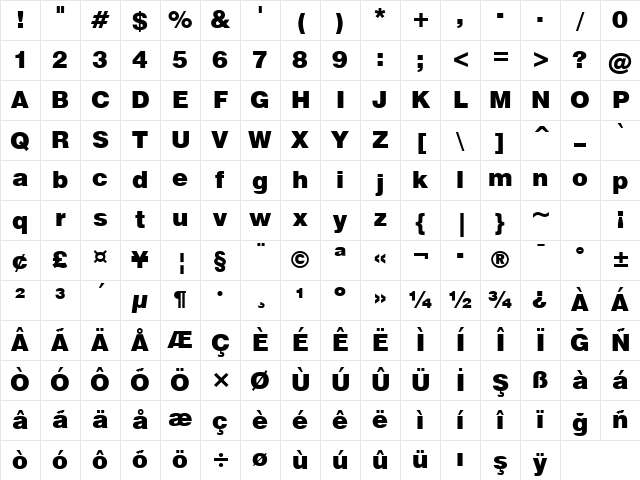
Complete Swiss 721 Black BT Regular glyph index. Displaying only characters natively supported by Swiss 721 Black BT Regular font.
Swiss 721 Black BT is a composed and adaptable typeface that performs quietly and consistently across a wide range of design contexts.